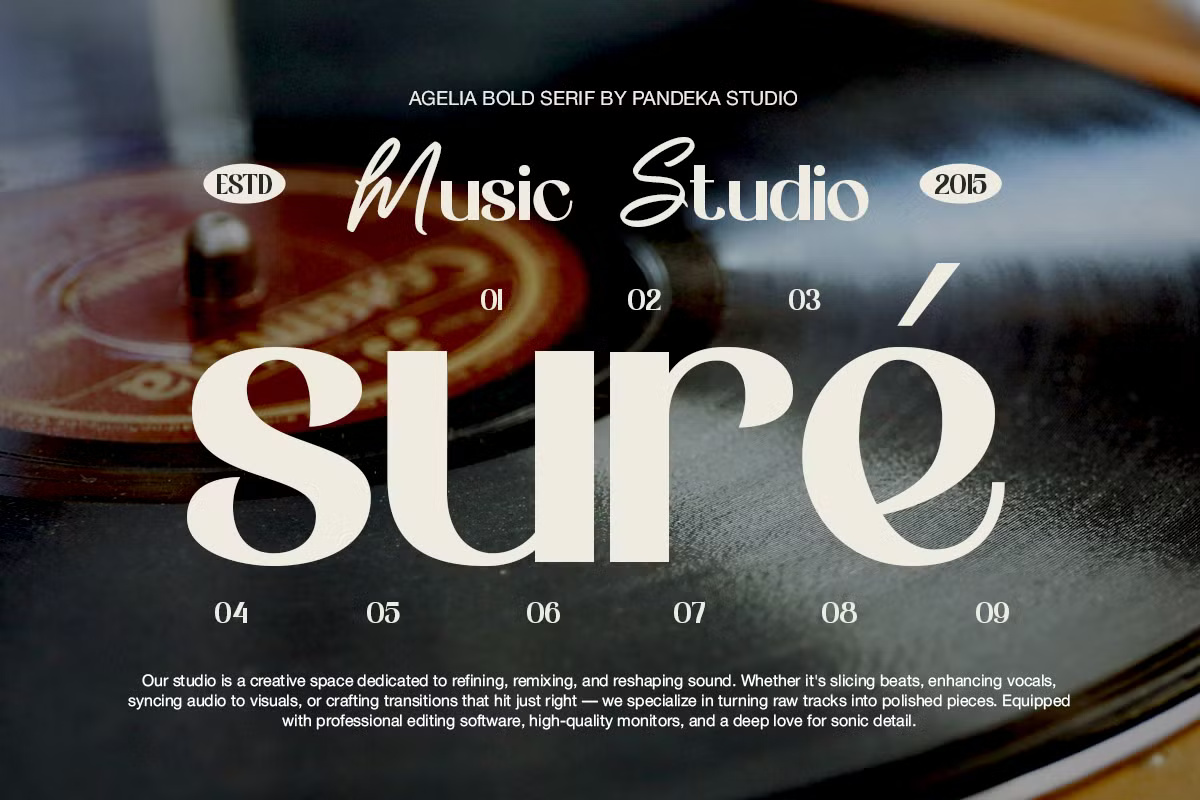
Agelia is a modern serif typeface featuring two refined styles: Regular and Italic. Blending classic typography with a polished, contemporary aesthetic, Agelia is perfect for premium design applications — from luxury branding and vintage packaging to editorial layouts, wedding invitations, bespoke book covers, and elegant website headers.
With its graceful curves and sophisticated presence, Agelia brings a distinctive touch of refinement to any creative project.